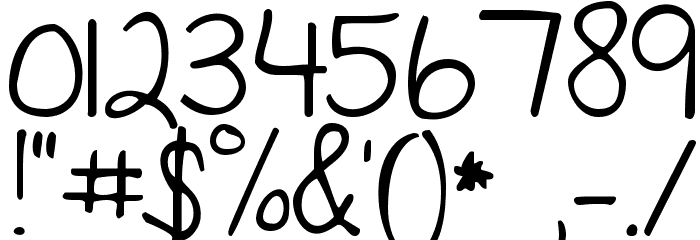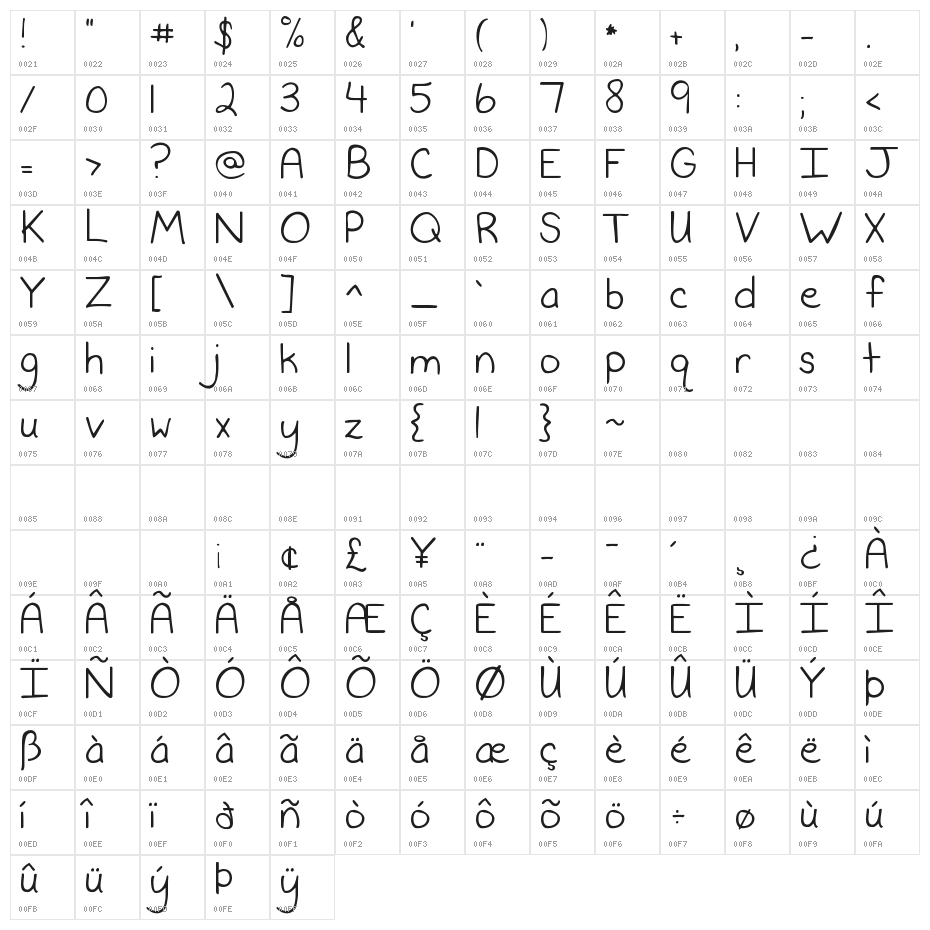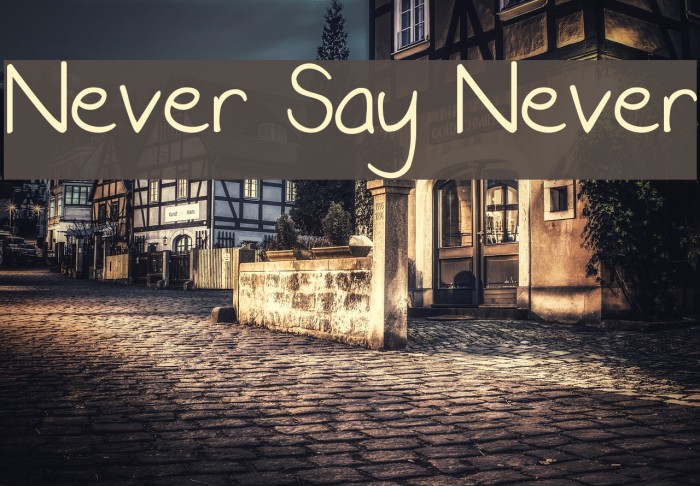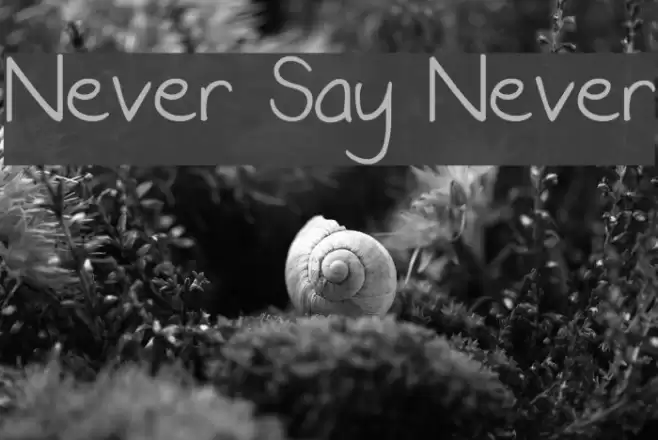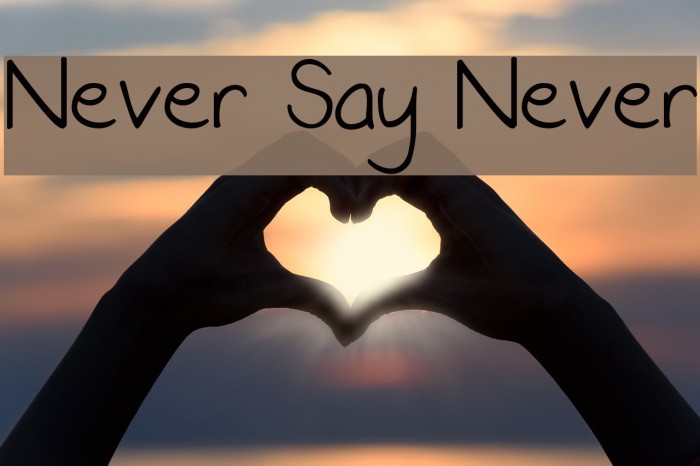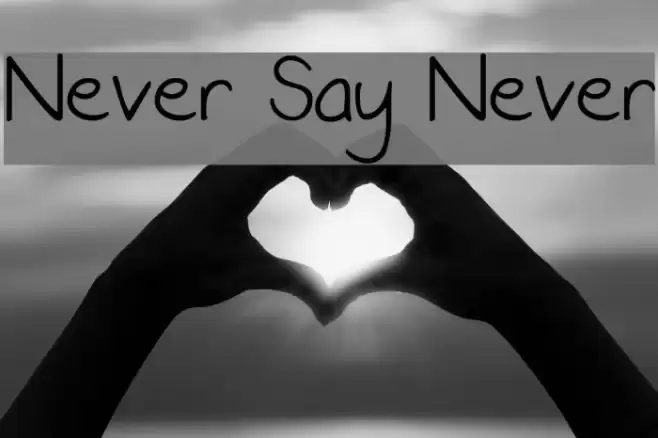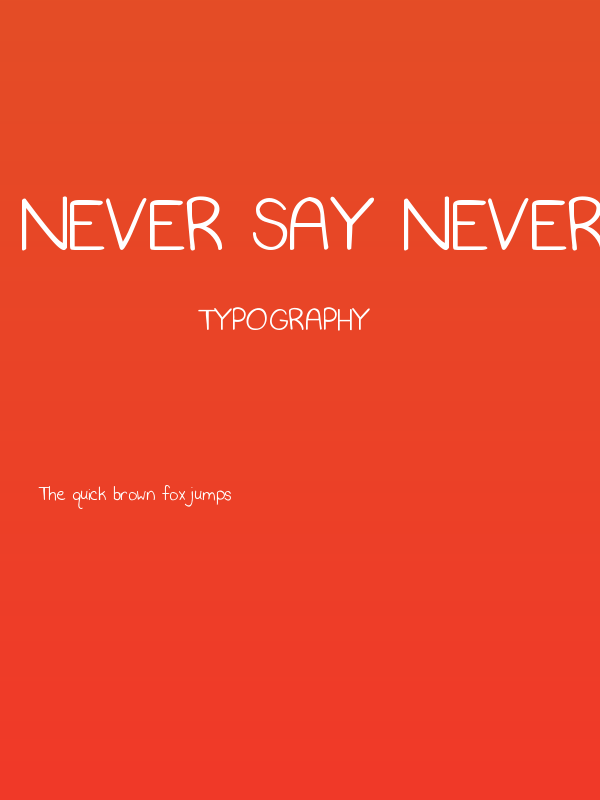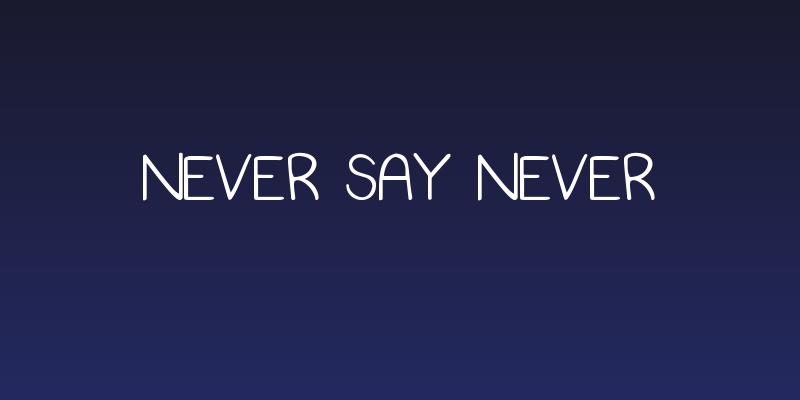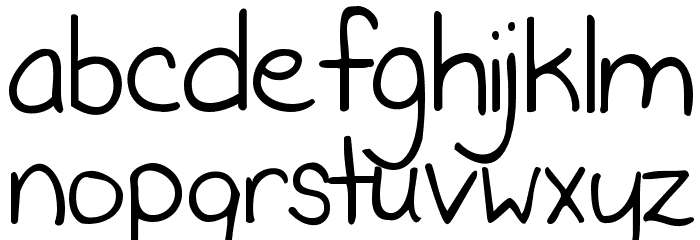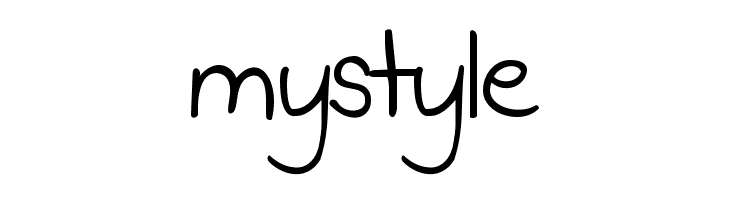
Never Say Never Font
Never Say Never Description
This playful and whimsical font features a handwritten style with a casual and friendly appearance. The characters are slightly irregular, giving it a personal and informal touch. The uppercase letters are tall and narrow, while the lowercase letters are more rounded and open. The numbers and special characters maintain the same playful aesthetic, making it versatile for various creative projects. The strokes are consistent in thickness, providing a uniform look across all characters. This font is ideal for projects that require a fun and approachable feel.
| Proposed Projects | Perfect for children's books, greeting cards, casual branding, and playful social media graphics. |